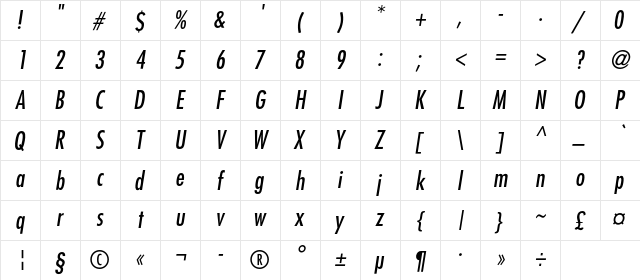
FavoritCondC Italic Font Preview
Design Context for FavoritCondC Typeface
FavoritCondC offers clean, dependable letterforms without strong stylistic allegiance, making it a practical choice for designers who need flexibility. The dynamic lean of this cut emphasises speed and emphasis in any layout. Its narrow stance lets it pack a punch even in space-constrained designs.
Pro Tip: Try FavoritCondC for annotation and caption copy alongside an upright companion — the contrast in angle creates a dynamic but ordered typographic system.